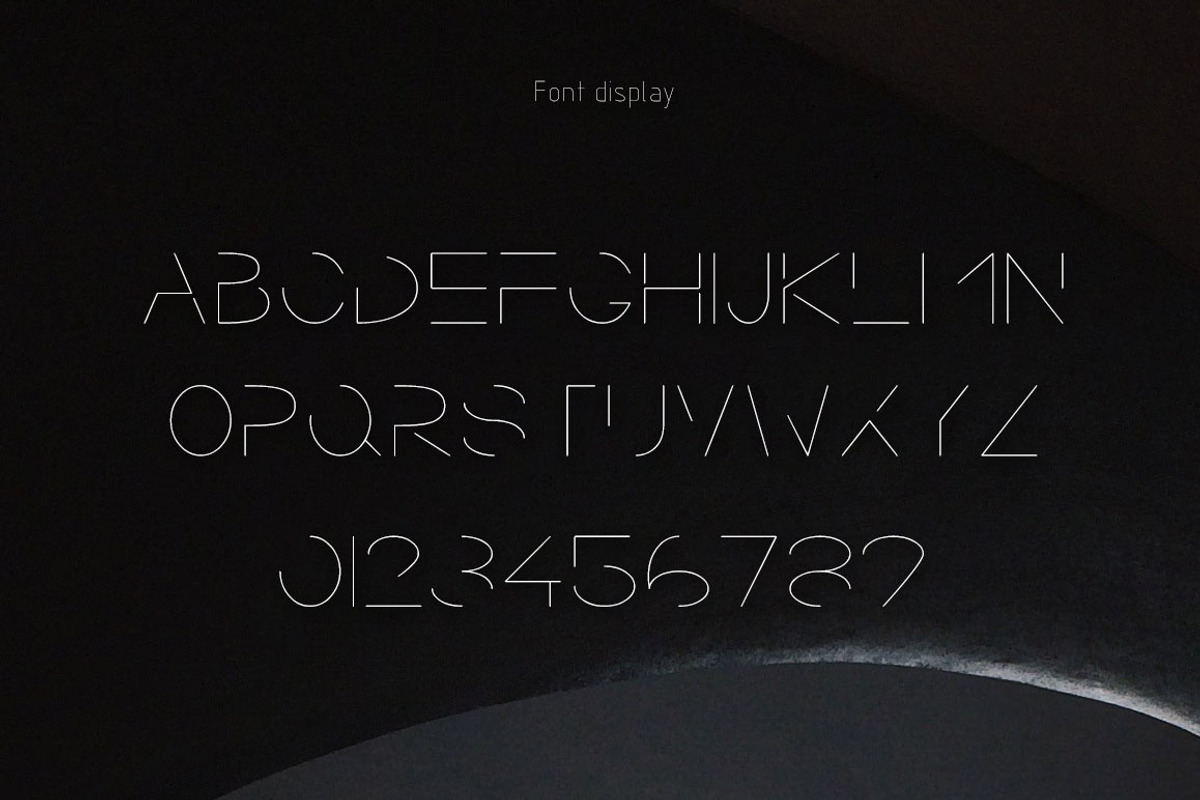
Indistinct Shine-Concise font
Indistinct Shine-Concise font by LYB-Design is a font selected for branding, posters, packaging, typography.
Indistinct Shine-Concise font by LYB-Design fits naturally into Branding, posters, packaging, typography.